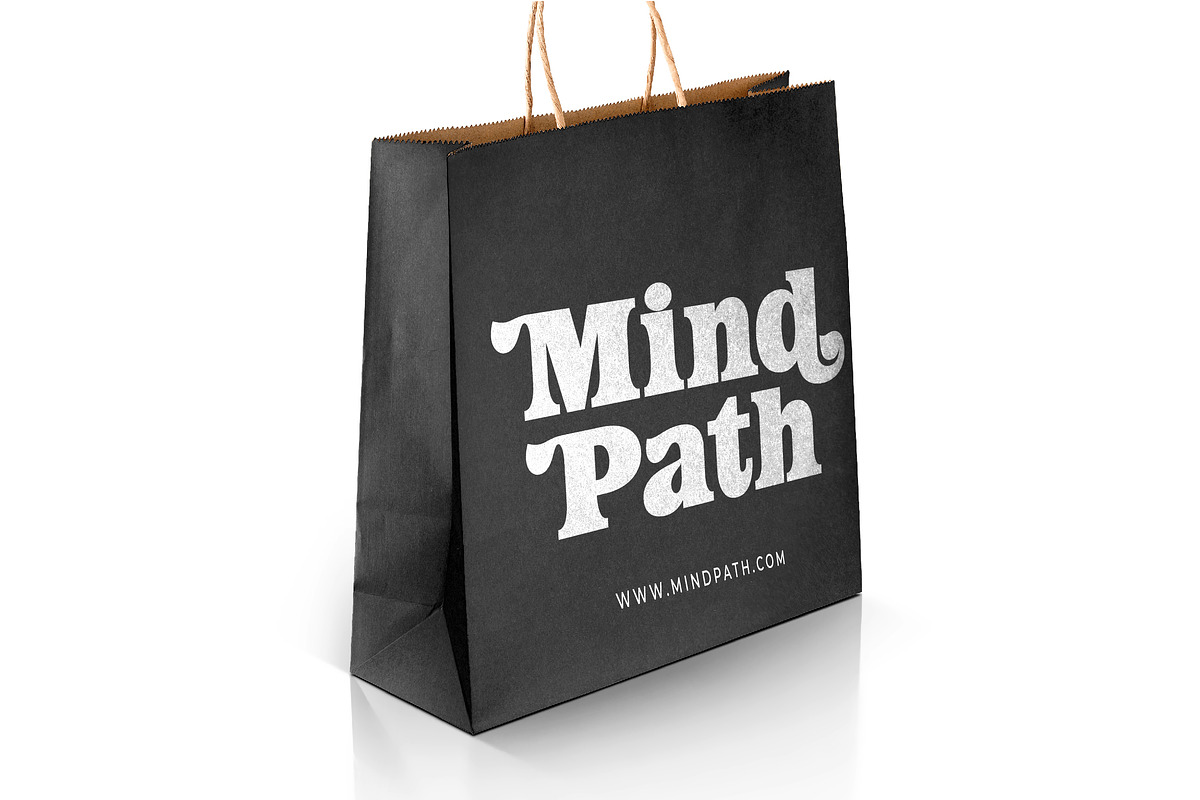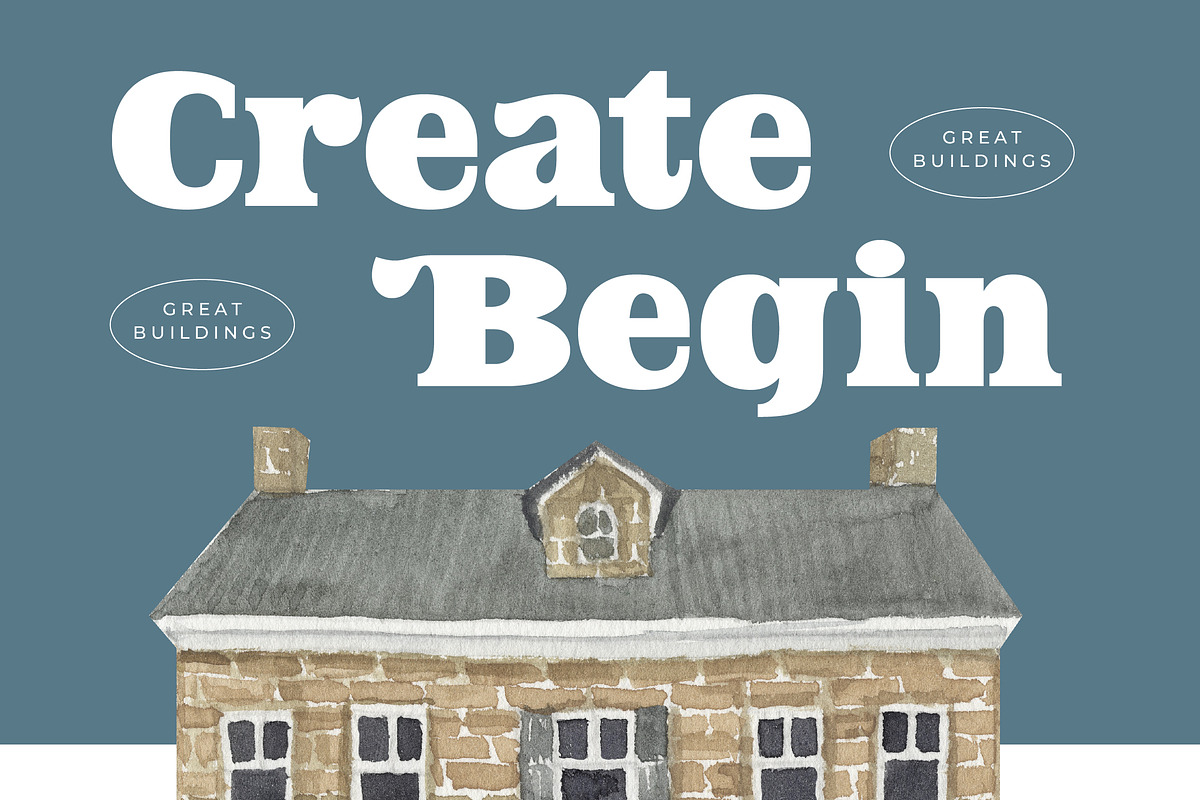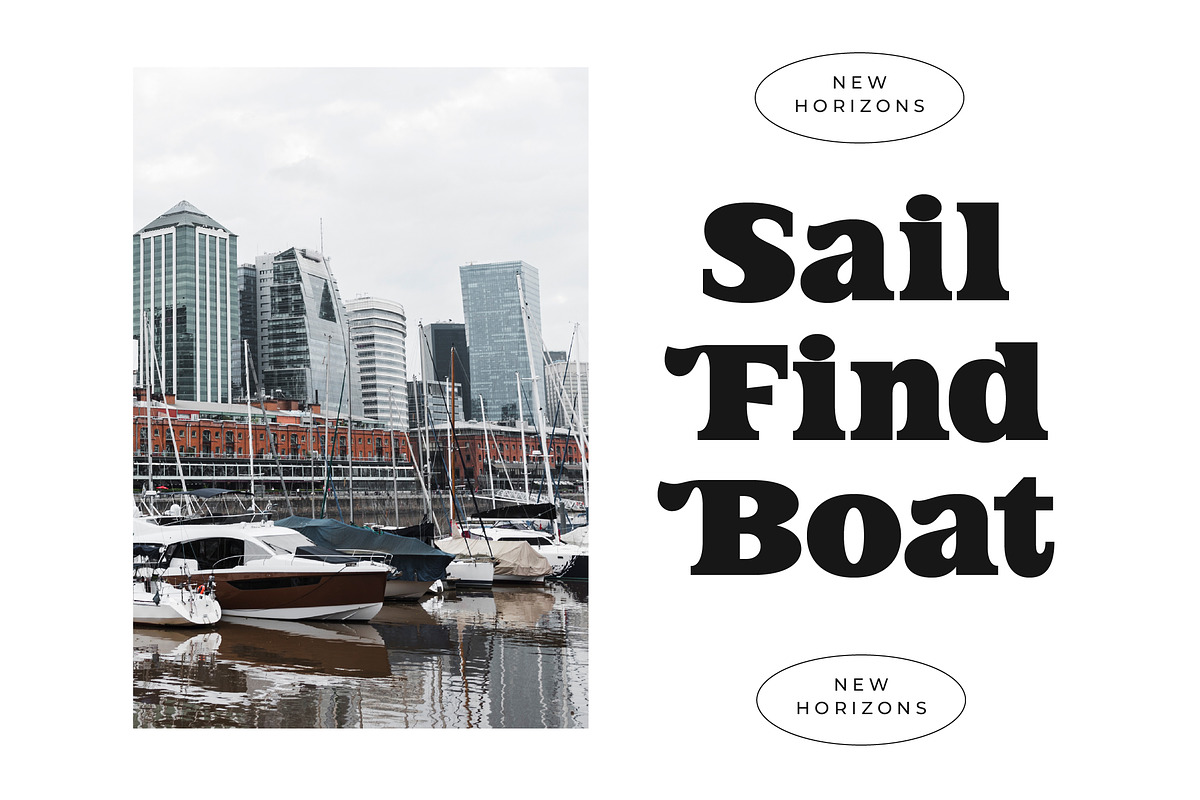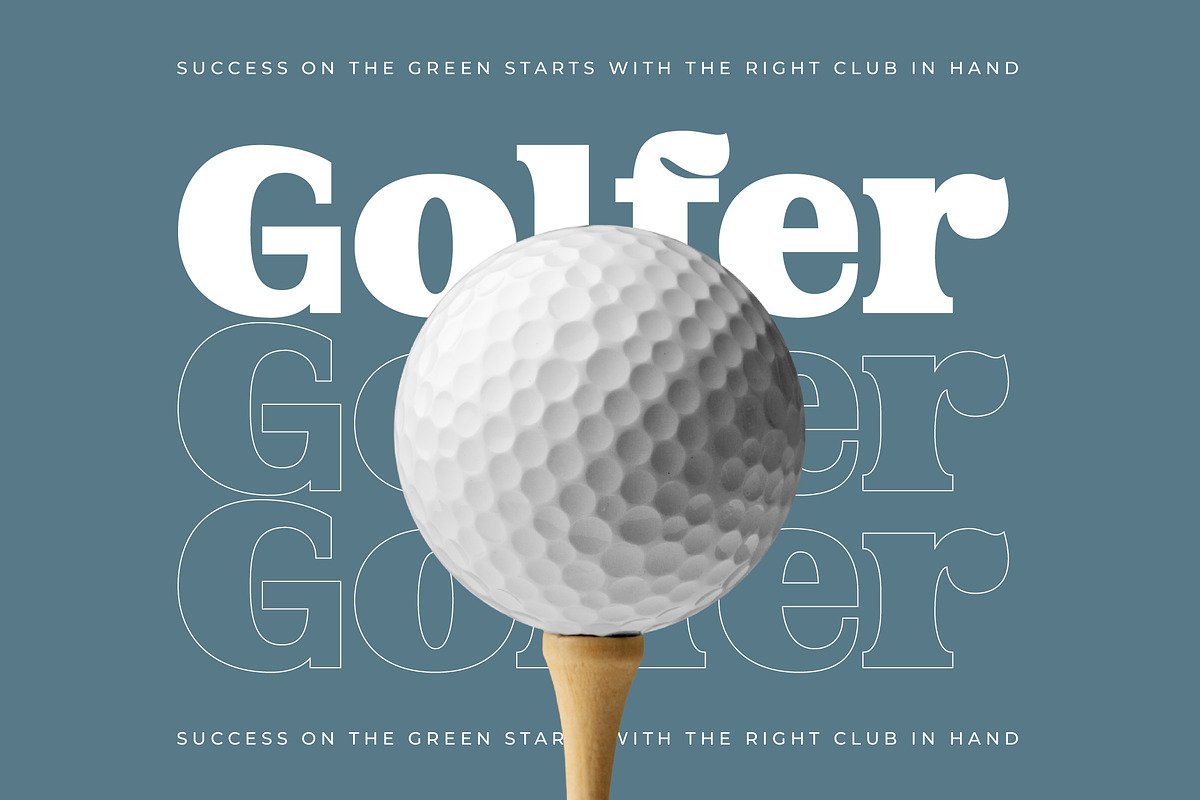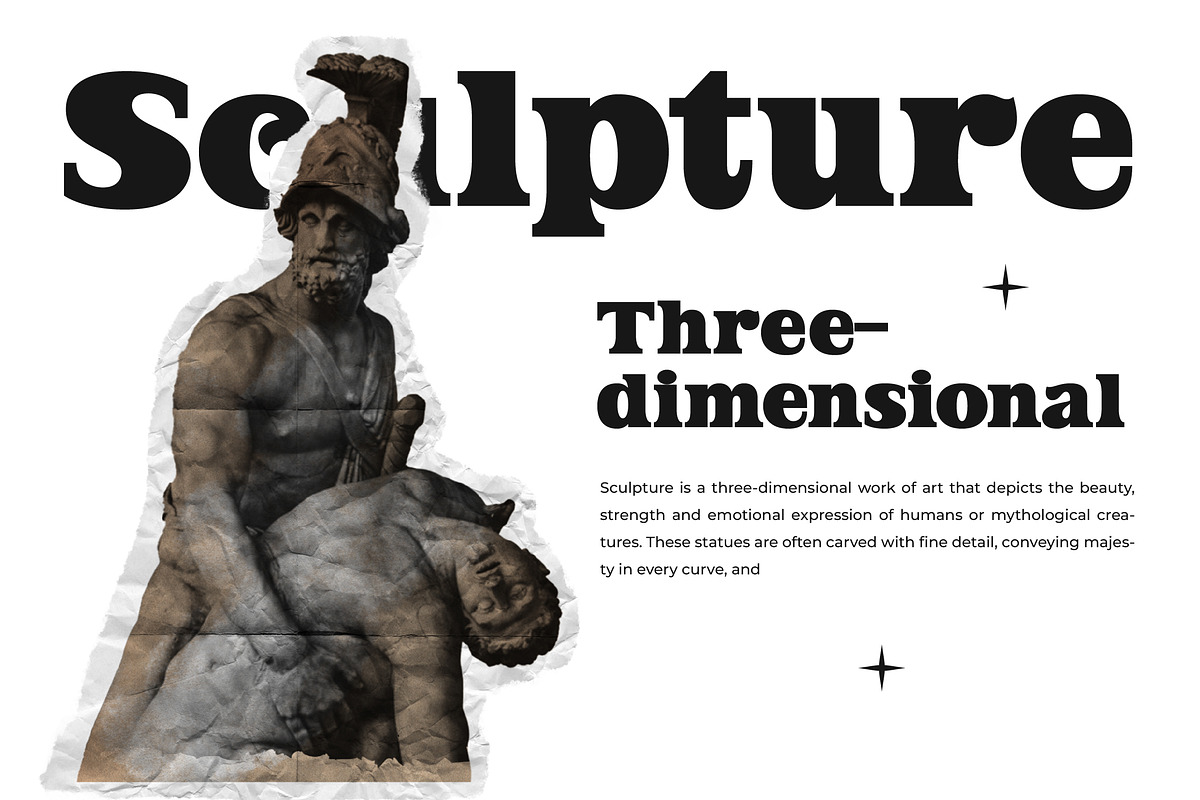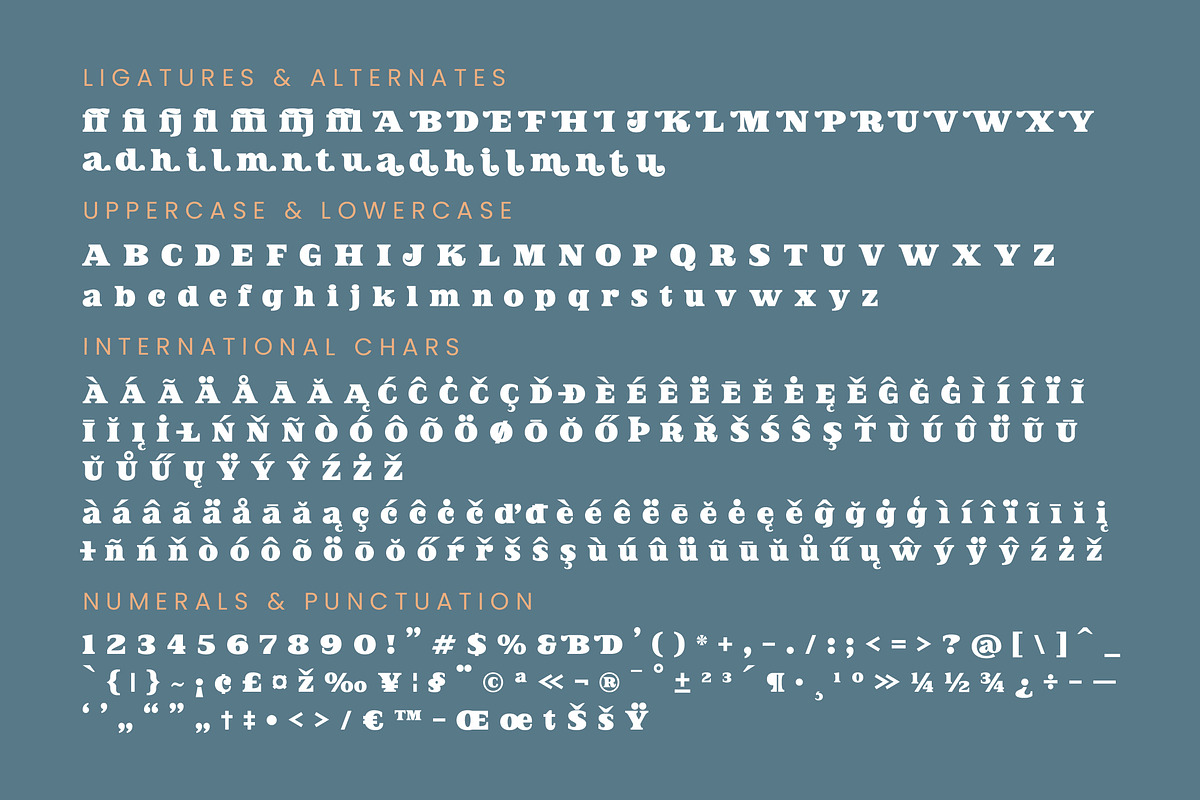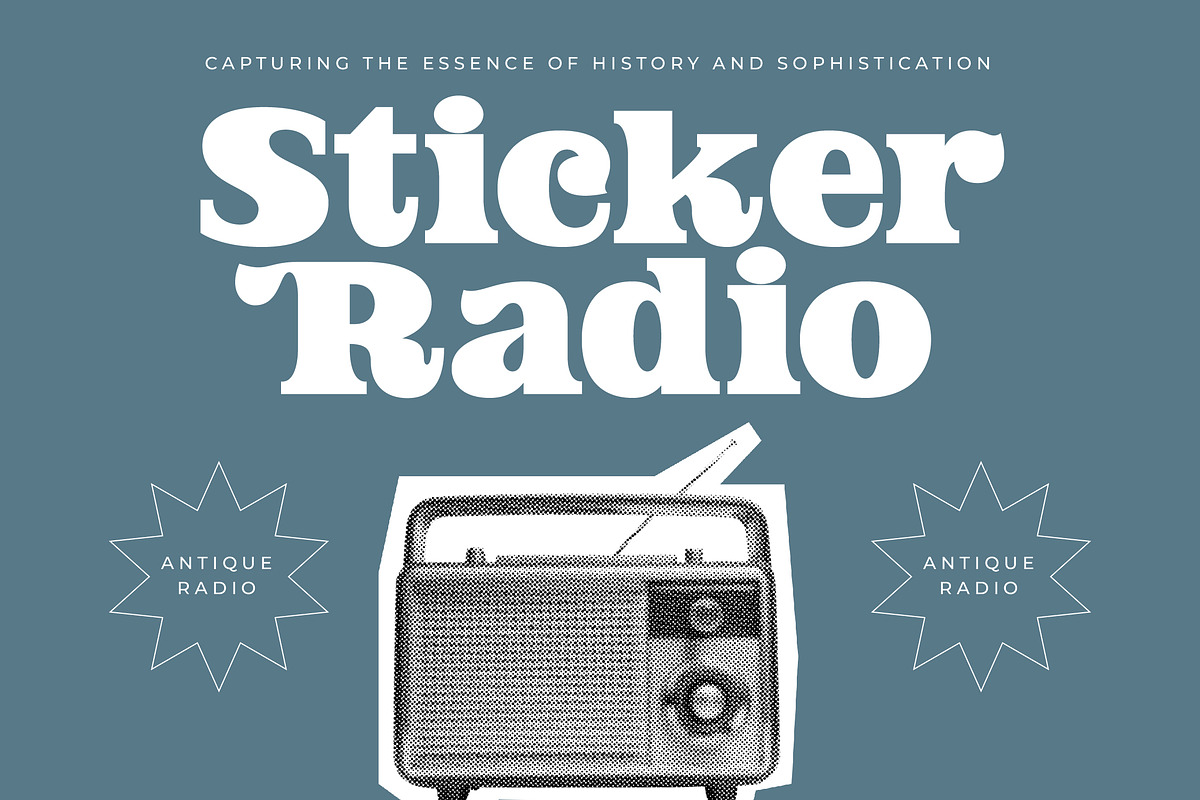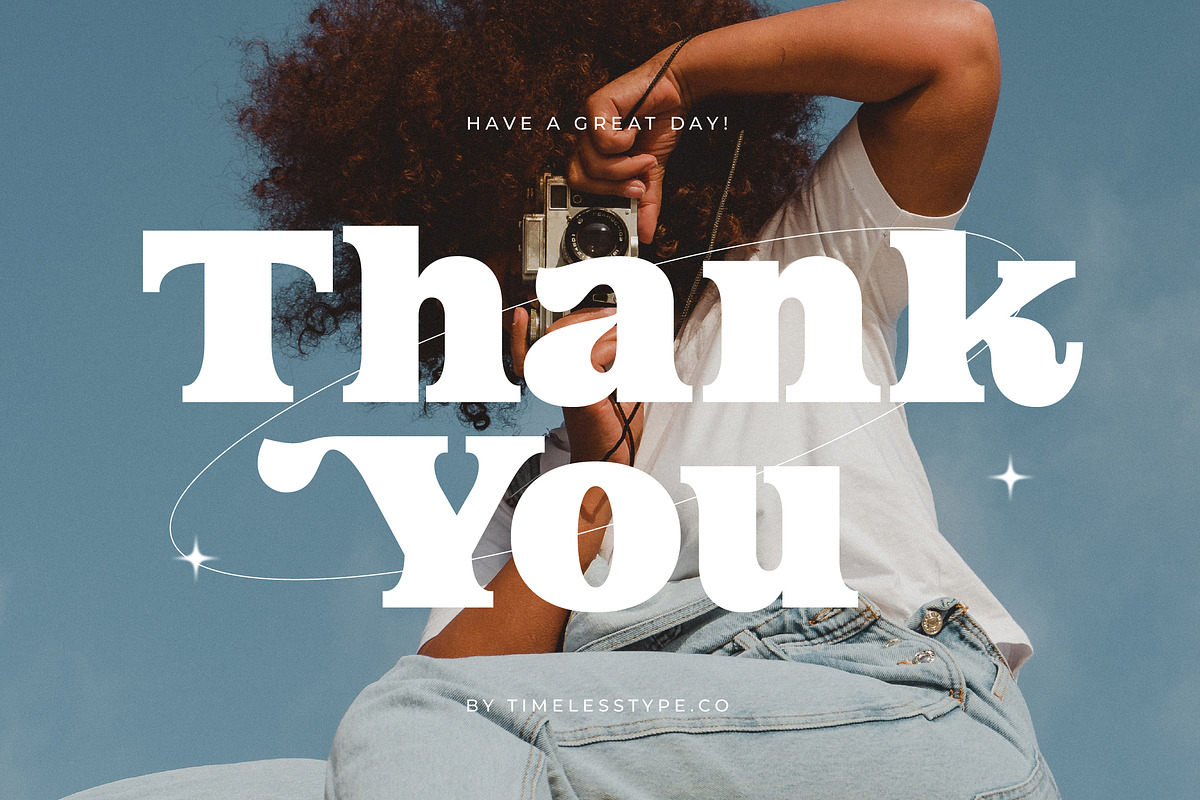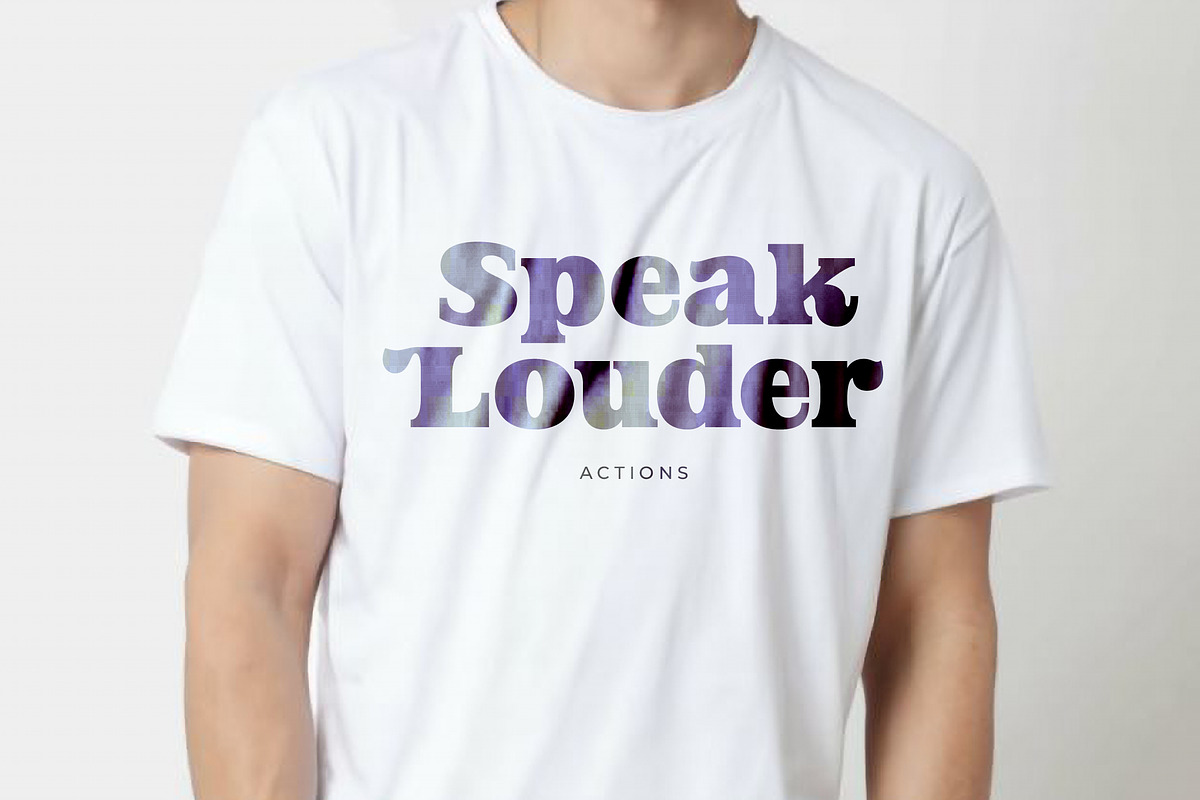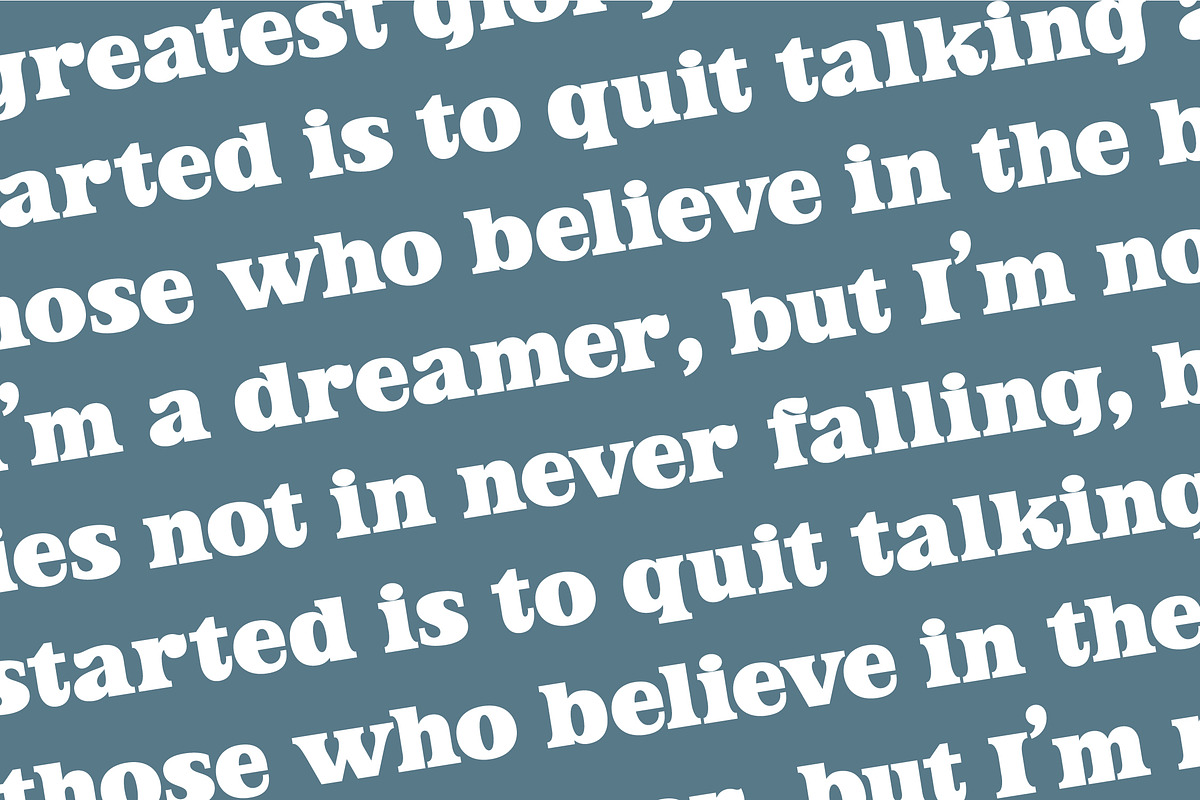
Jofjin Vikar Modern Serif Display
Elevate your visual identity with Jofjin Vikar, a typeface designed to command attention and radiate sophistication. This stunning serif is more than just a font; it is a definitive statement piece for any modern designer looking to bridge the gap between classic elegance and contemporary flair.
Drawing inspiration from the golden age of fashion photography and the grit of urban street style, this font captures a unique intersection of vintage soul and contemporary edge. It evokes the atmosphere of a high-end gallery where classic forms meet experimental aesthetics, resulting in a timeless visual language.
The modern serif display character of this typeface offers a powerful branding impact that is impossible to ignore. With its high-contrast serif strokes and refined curves, it provides a level of luxury typography and editorial font quality that sets a new standard for premium design projects.
Perfectly aligned with the current modern serif trend, this typeface addresses the growing demand for character-driven typography in the digital age. It stands out among editorial display fonts by offering a bespoke look that feels hand-crafted yet meticulously polished for today's competitive design market.
This versatile typeface is the ideal choice for high-end logo design, cohesive branding systems, and bold editorial layouts. It brings an air of elegance to luxury packaging, romantic wedding stationery, and avant-garde fashion spreads where every letter must convey a sense of curated excellence.
Every download includes a rich set of 7 ligatures and 37 alternates to help you customize your headlines and create unique typographic rhythm. The font also provides full multilingual support and a wide range of international characters, ensuring your message reaches a global audience with ease.
- Ligature 7 Alternate 37